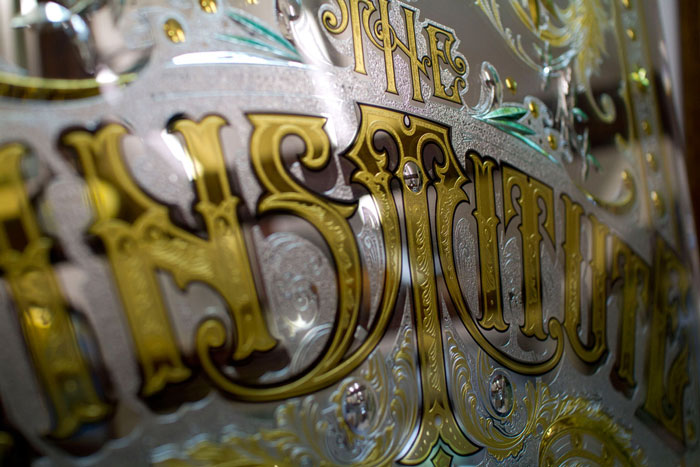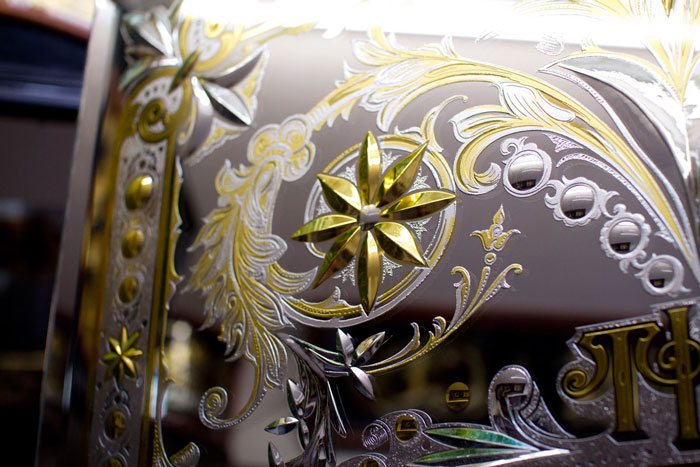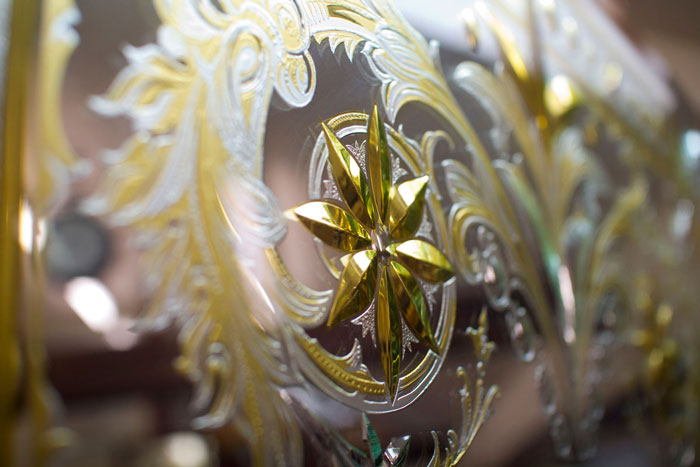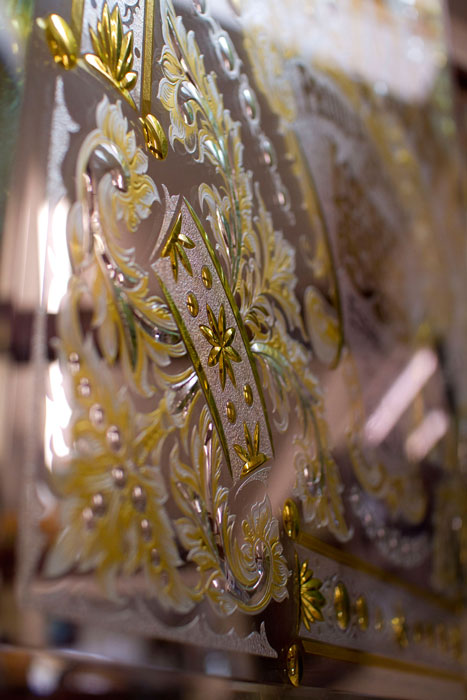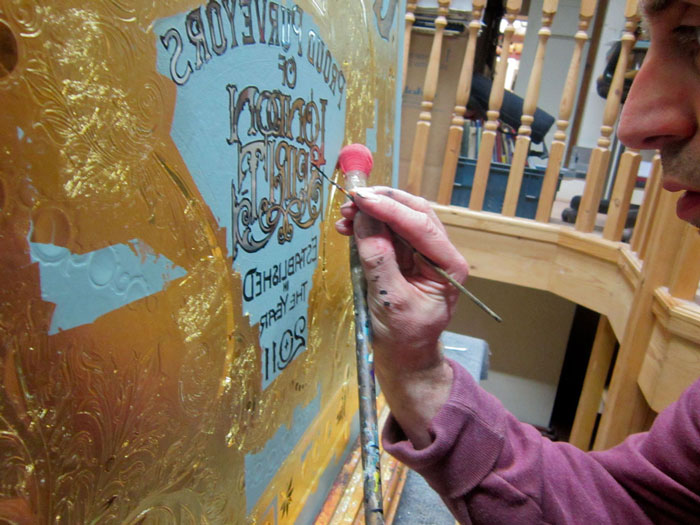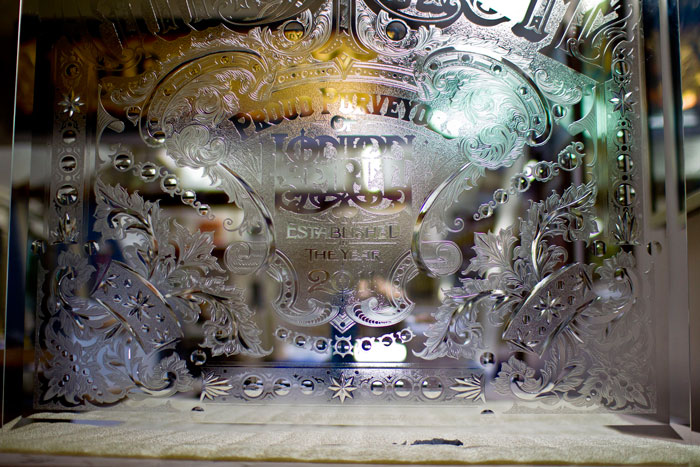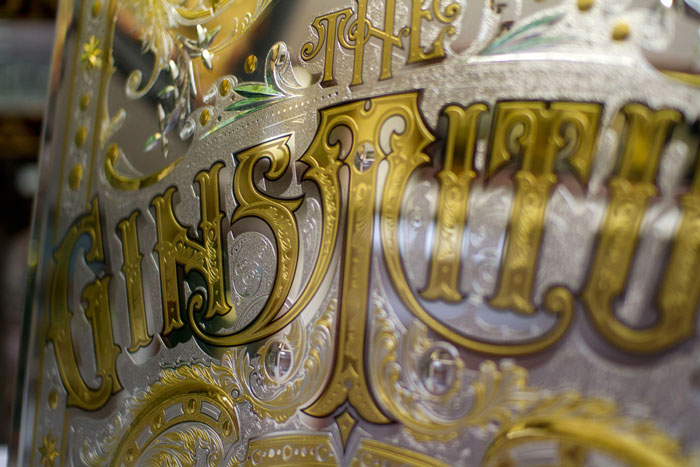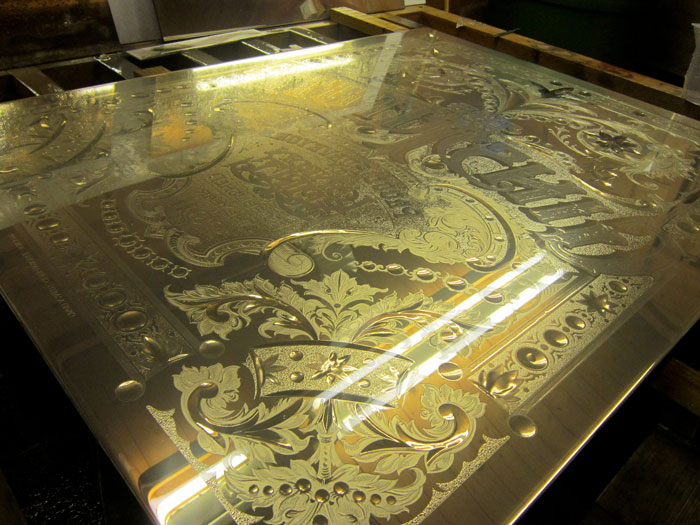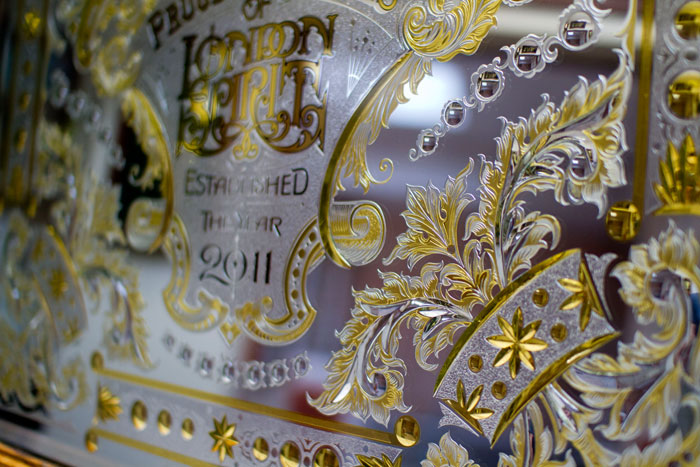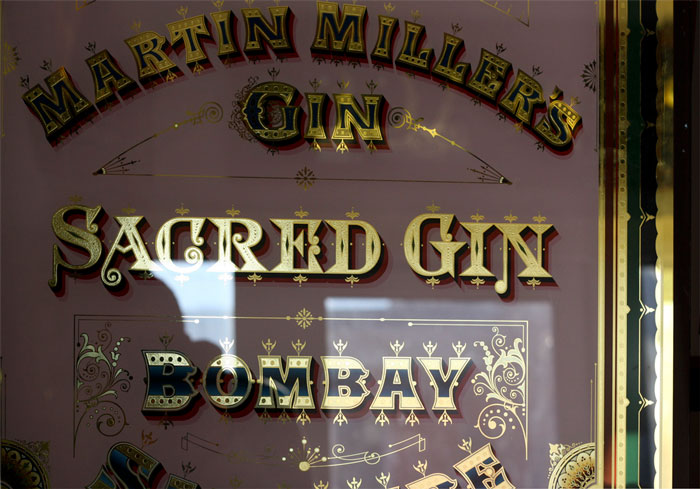
The Ginstitute. Portobello Road ,London
Recently finished this panel along wth two others for a museum on the Portobello Rd in London. The Ginstitute is a building which has served beverages on and off since possibly as long ago as 1740- The Ginstitute boasts: a small re-creation of a Victorian Gin Palace Bar- complete with a staggering selection of Gins, cabinets full of interesting historical Gin artifacts, including many antique bottles, vintage advertising pieces, archive materials from the most famous distillers of London Gin.
Proudly staking its claim as London’s Second Smallest Museum, The Ginstitute is a new independent home for Gin in London – created with the help and co-operation of all the most important distillers of London Gin. It will play regular host to master classes and tasting sessions by some of the greatest names in modern gin. The glass panels are on the main walls inside the museum, i will post some more images once the glass is in place.
Cut glass and signwork
some more angles.. various tones of acid and cut glass.
close up shots.
Is that slumped glass?
There are some views where it looks as though the glass is curved - or is that because a wide angle lens is being used in your photos?
Will these panels be used as a mirror behind a bar? Looking forward to seeing the completed project in place.
Dave did you use a photo resist screen and print your negative image?
Also did you etch register your ground elements then grind or grind then etch?
Dan it is not slumped, must be the photography and angles it's creating , thank you!..
Tyler, no screens on this panel were used ,everything was handwork but needed to be pretty exact for the handcut vinyl sections for acid work.
Here is a close up of the side panels that go with this piece.